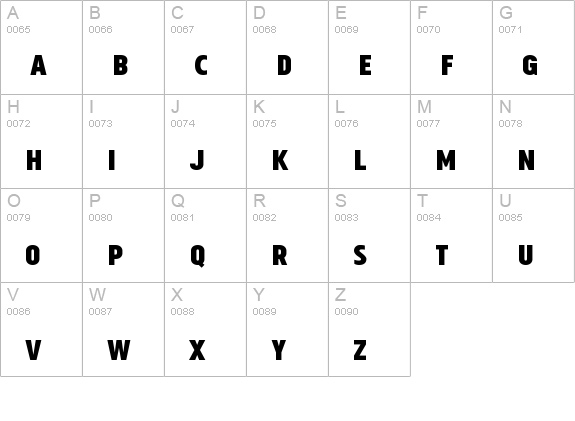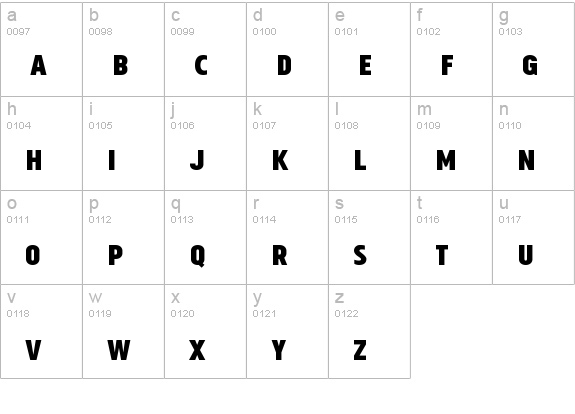
Tolyer Bold no.1 is a strong, high-contrast variant in the Tolyer typeface family \xE2\x80\x94 well suited to headlines, attention-grabbing titles, and strong calls-to-action.
Tolyer Bold no.1 font is a striking and versatile typeface that exudes confidence and power. With its bold and commanding presence, this font is perfect for making a statement in your design projects. The bold strokes and clean lines of Tolyer Bold no.1 font give it a modern and sophisticated look that is sure to captivate your audience. What's even better is that Tolyer Bold no.1 font is completely free to download at FontsMarket.com. This means you can easily access this stunning font and use it in your projects without any hassle. Whether you're creating posters, banners, logos, or any other design, Tolyer Bold no.1 font will add a touch of elegance and flair to your work. Don't miss out on the opportunity to elevate your designs with Tolyer Bold no.1 font. Download it for free today and let your creativity shine!